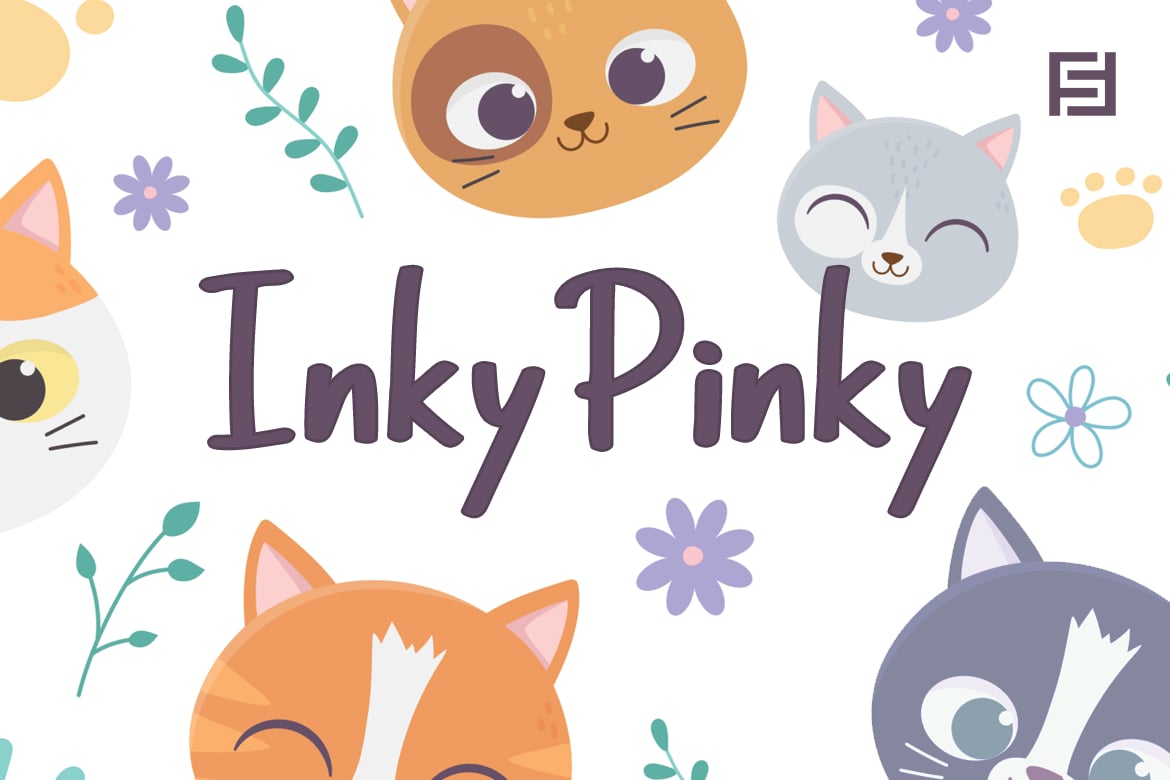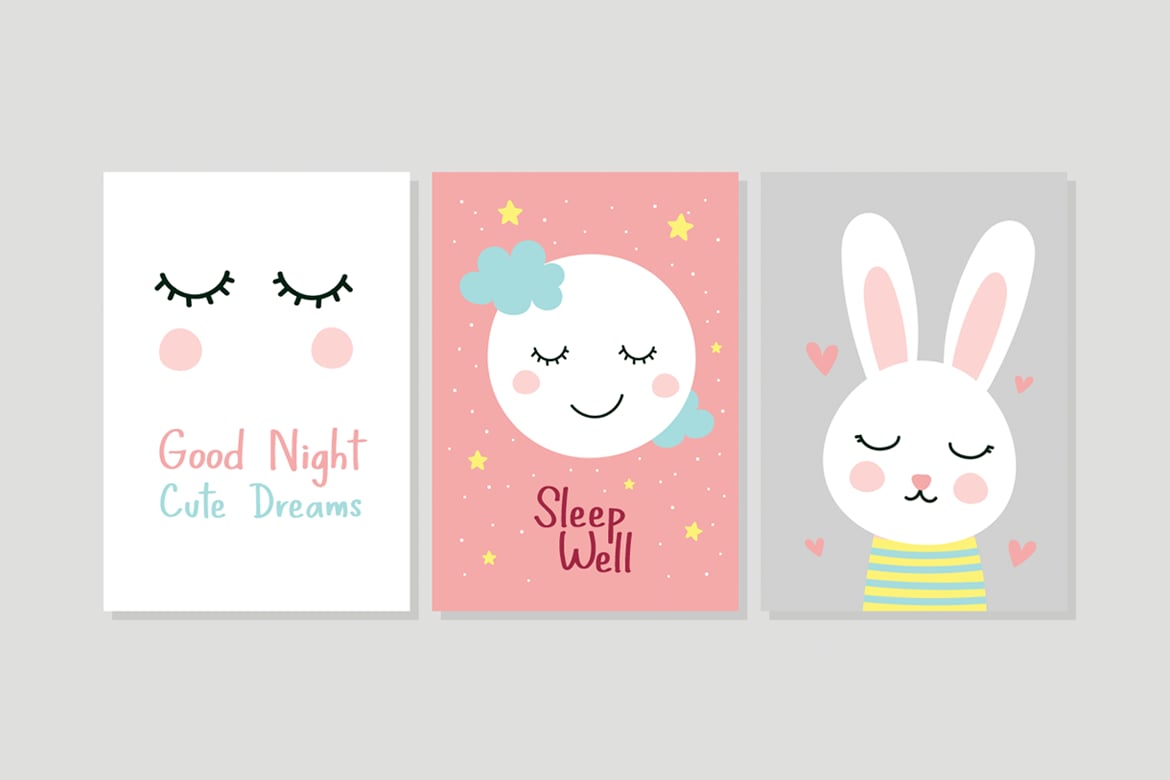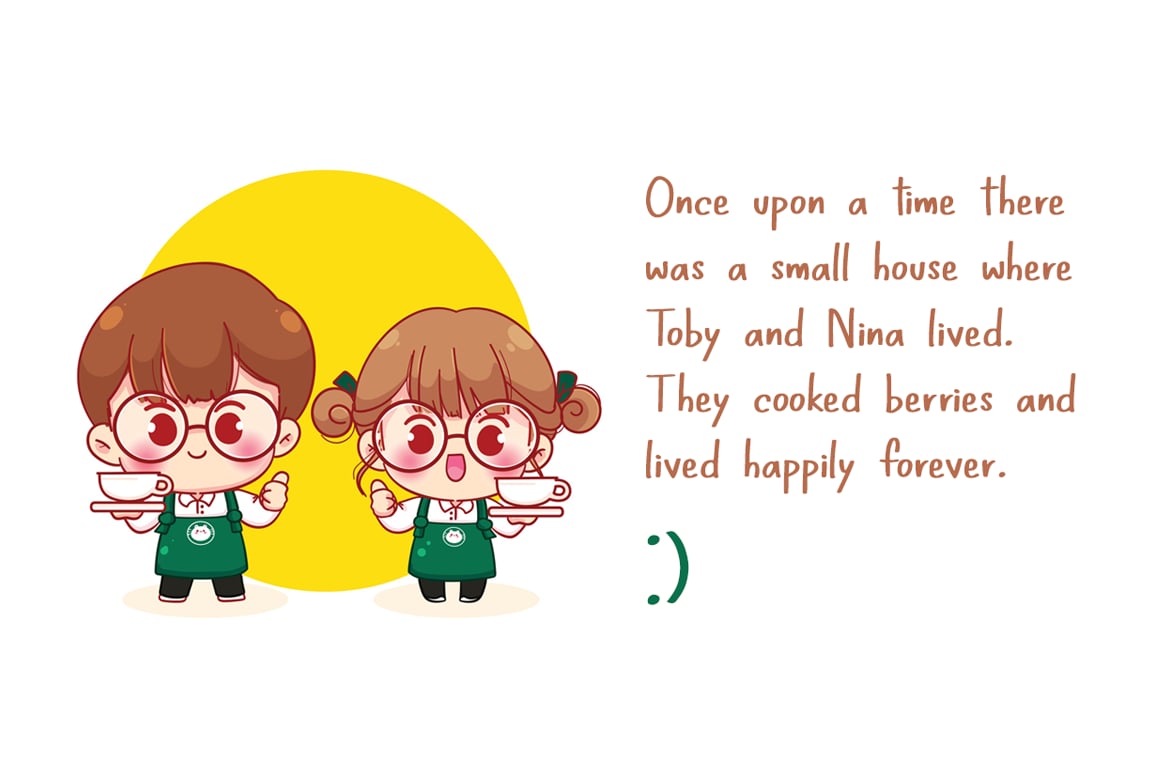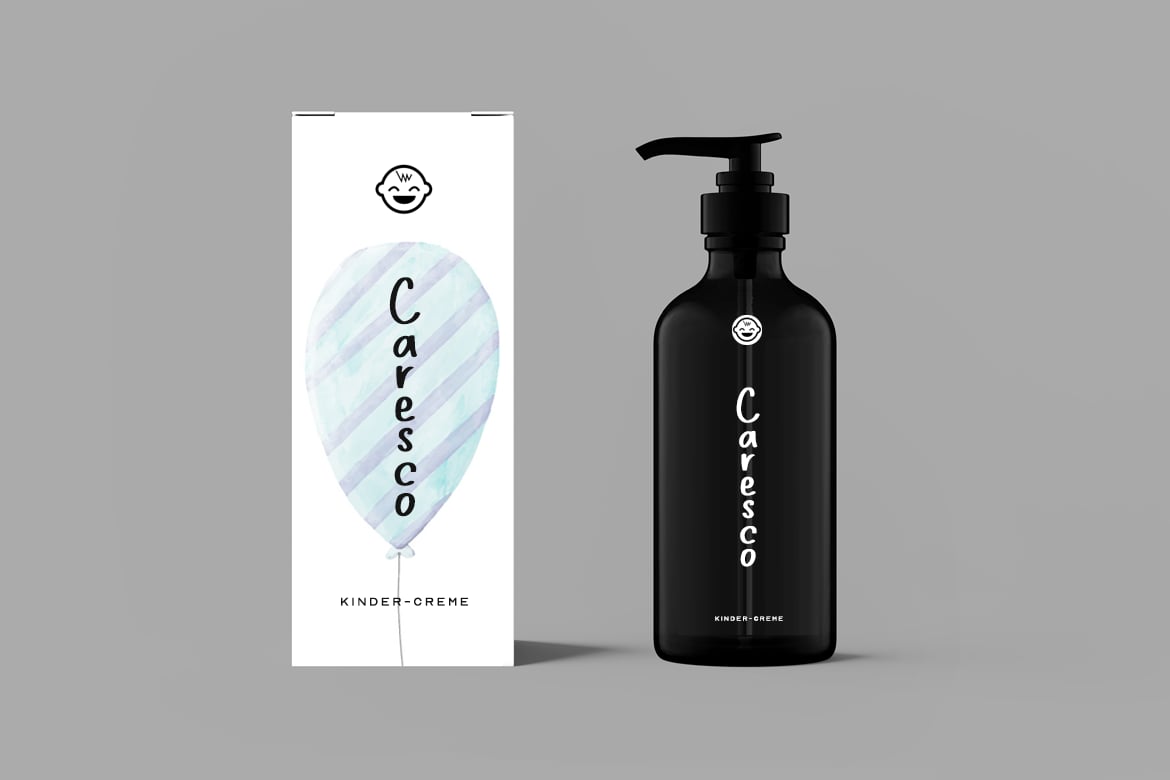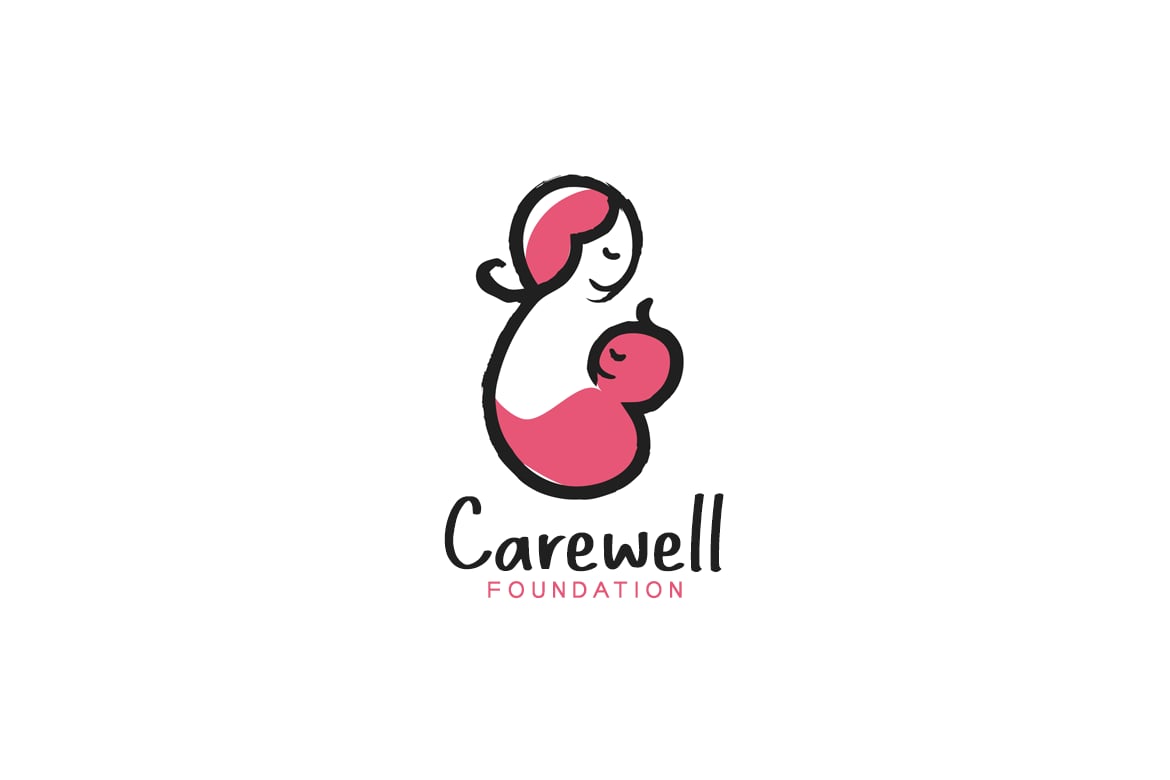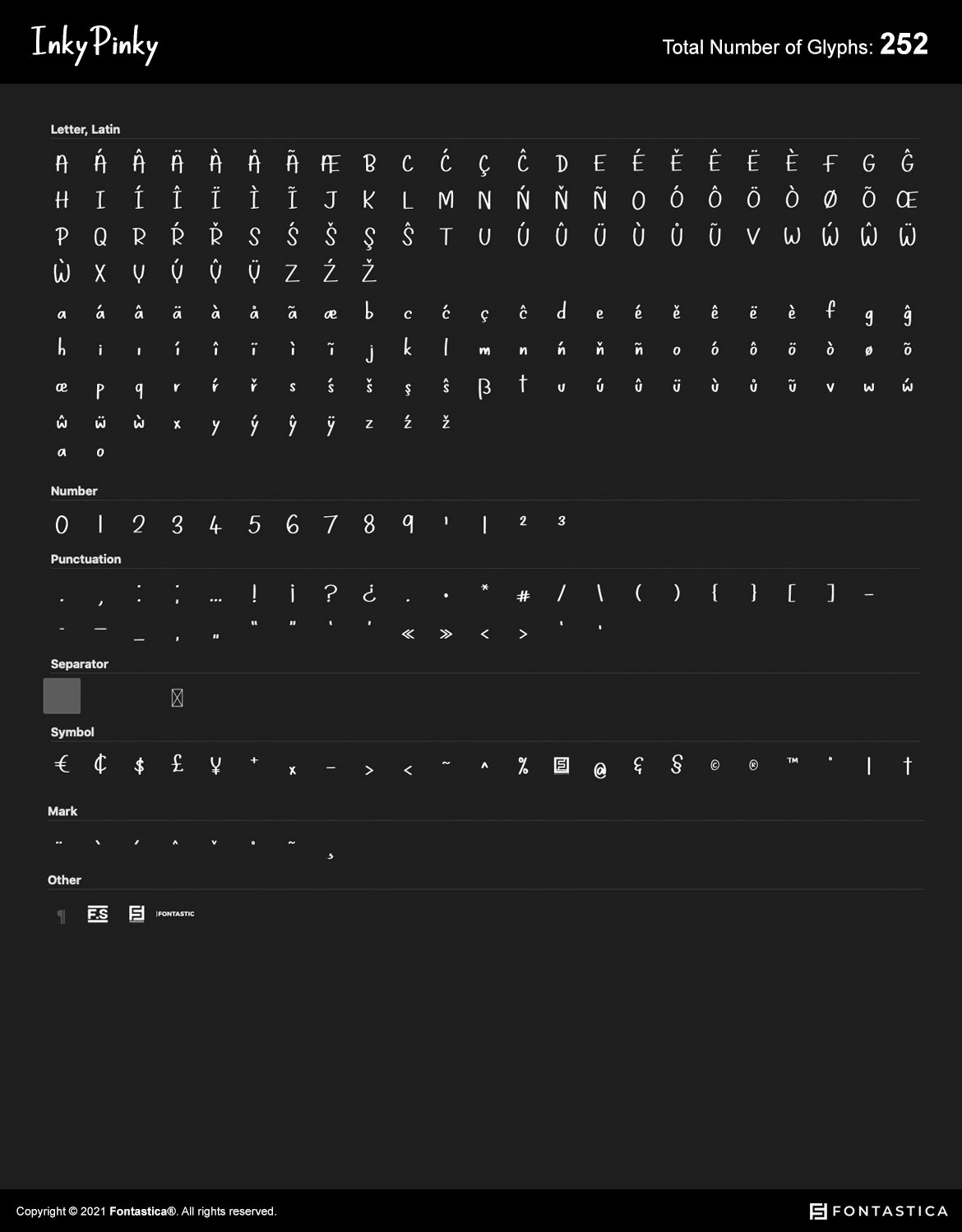
InkyPinky – Cute Cartoon / Kids Font
InkyPinky – a lovey & playful handwritten font inspired by kids cartoons & sketchbooks, completely handmade and developed with perfection
The typeface is actually simple in design but with a touch of uniqueness, it can be perfectly useful for designing posters, flyers, cartoons, comics, graphics, logotype, web and display usage. Please see the examples shown above to get an idea about the capability of this typeface.
InkyPinky comes with a total of 252 glyphs having Extended character sets including Western European, Central European and South Eastern European character sets having support for 19 languages: Afrikaans, Albanian, Catalan, Croatian, Danish,Dutch, English, Estonian, Finnish, French, German, Italian, Lithuanian, Norwegian, Portugese, Slovenian, Spanisch, Swedish, Zulu.